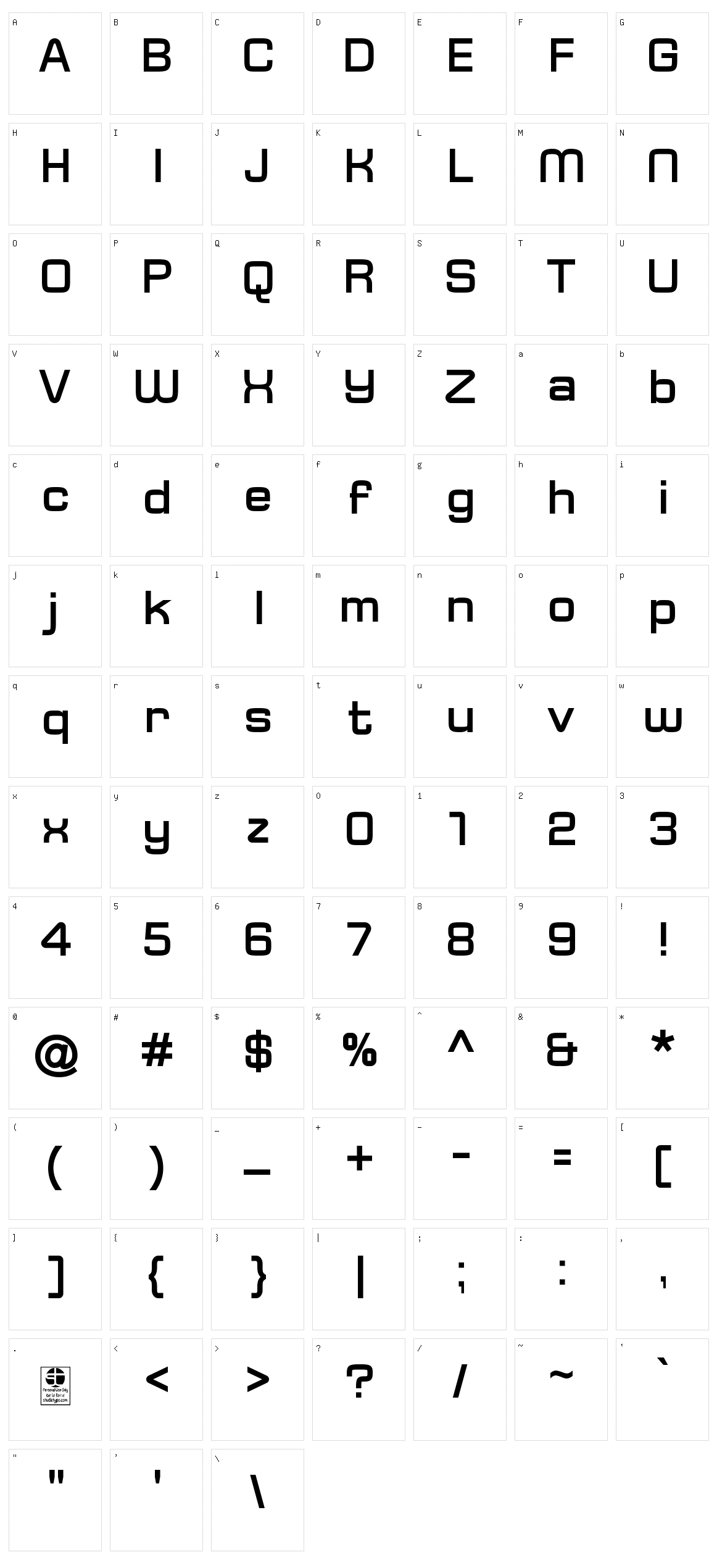
The free font Typo Square is carefully designed by Studio Typo, showcasing a thoughtful balance of creativity and usability and falls under the Sans serif font style. When you download the ZIP file, it contains only 268.88 KB of font files, making it lightweight and quick to download. Please review the license details below to understand permitted usage and distribution rights. If license information is not available, we recommend using this font for personal projects only or contacting the author directly for commercial usage permissions.